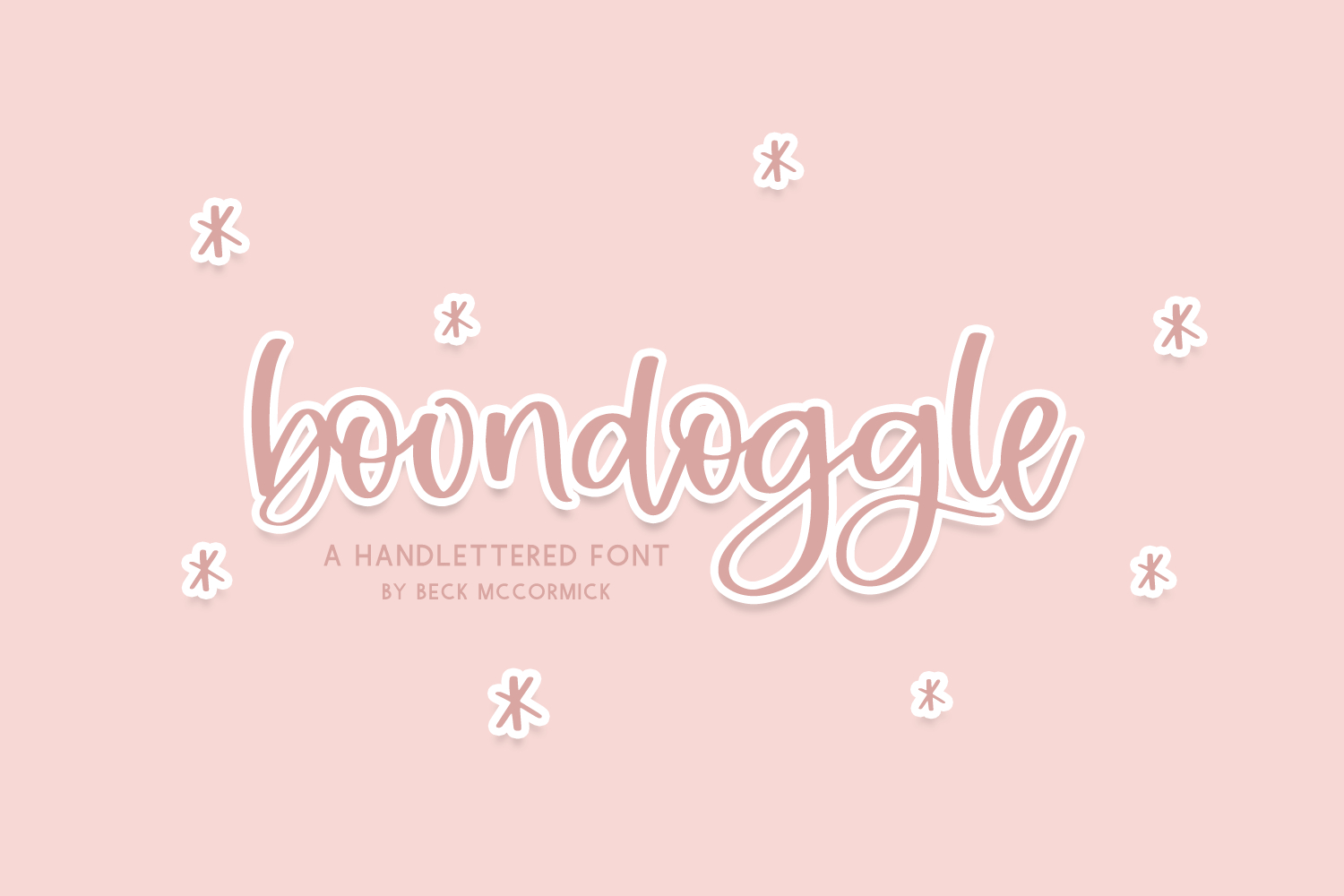
Boondoggle Script Font
Introducing Boondoggle, a cute handlettered modern calligraphy script. Boondoggle features 26 alternates & 14 ligatures, further enhancing the handwritten look like natural handwriting!
Boondoggle is best for:
- feminine, crafty projects with your Cricut or Silhouette machine, or your SVG design business
- wedding invitations, wedding favors, or wedding decor
- farmhouse decor and crafts
- digital planners & apps like Goodnotes
- website design + website accents, blog design
- feminine graphic tee shirt design & other apparel
- 26 alternates
- 14 ligatures - bb, cc, dd, ee, ff, gg, ll, mm, nn, oo, pp, rr, ss, tt